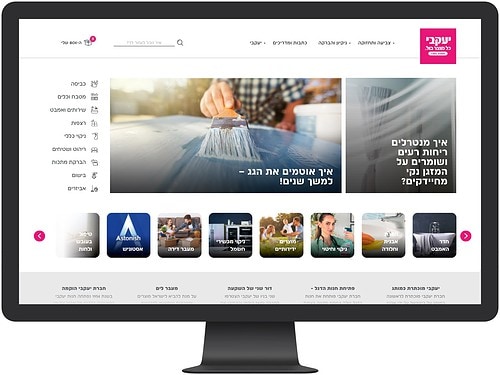
פונט סנס Grotesque דו־לשוני בסיסי ונעים שיפתור לכם בעיות עיצוביות בלי למצמץ.
Afek adores the stage and yet does not steal the show.
אפק כולל 8 משקלים ורסטיליים ומוקפדים, 526 תווים ותמיכה מלאה ב־220 שפות לטיניות.
ועכשיו גבירותי ורבותי, הרשו לנו להציג בפניכם את הפונט אשר שמו הטוב נודע למרחקים. הוא אוהב את הבמה אך לא גונב את ההצגה. קבלו אותו במחיאות כפיים סוערות!
אפק הוא פונט סנס Grotesque דו־לשוני בסיסי, נעים וניטרלי שלא ישתלט על העיצוב שתרקחו בעזרתו. הוא משמש גם לטקסט־רץ (גם בגדלים קטנים מאד) וגם לכותרות ויפתור לכם בעיות עיצוביות בלי למצמץ.
משפחת אפק כוללת 8 משקלים ורסטיליים ומוקפדים, 526 תווים ותמיכה מלאה ב־220 שפות לטיניות. האותיות הלטיניות של אפק ייחודיות בכך שהן בעלות x-height גבוה ו־caps-height נמוך ובכך מאפשרות עבודה דו־לשונית חלקה, זורמת ונעימה.
And now, ladies and gentlemen, allow us to introduce you to this world-renowned typeface! It adores the stage and yet does not steal the show. Yes, this Hebrew and Latin is perfect for both small and large text and its Webfont version is perfect for screen display. Afek is a basic, pleasant and neutral Bilingual Grotesque Sans. It is used both for small body text (even in very small sizes) and for titles and will easily solve your design problems.
And now, ladies and gentlemen, allow us to introduce you to this world-renowned typeface! It adores the stage and yet does not steal the show. Yes, this Hebrew and Latin is perfect for both small and large text and its Webfont version is perfect for screen display.
Afek is a basic, pleasant and neutral Bilingual Grotesque Sans. It is used both for large titles and small body text (even in very small sizes) and will easily solve your design problems. Afek includes 8 versatile and meticulous weights, 526 characters and full support for 220 Latin languages. Afek's Latin letters are unique in that they have a high x-height and a low caps-height, thus enabling smooth, flowing and pleasant bilingual work. Design and development Avraham Cornfeld and Anna KHorash.
• salt ע → ע
• 0 → 0
• dlig אשכרה → אשכרה
• mark קֳךָ → קֳךָ